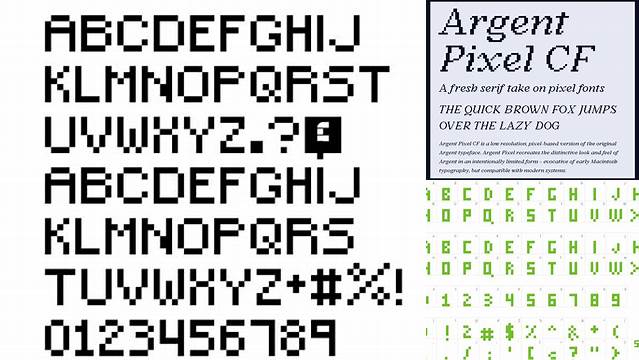
Hey everyone! 👋 Are you looking for a cool, retro vibe for your projects? Then look no further than the Argent Pixel Font, a fantastic option that's also totally free! This article is your ultimate guide to everything Argent Pixel: where to find it, how to use it, and some awesome design ideas to get your creative juices flowing. Get ready to dive into the world of pixel perfection! Argent Pixel Font is your go-to for that classic, blocky look reminiscent of old-school video games and early computer graphics. And the best part? It's available to download and use without spending a dime. Let's get started!
Argent Pixel Font: A Deep Dive into the Blocky Aesthetic
So, what exactly is the Argent Pixel Font? Well, imagine those iconic, chunky letters and numbers you see in games like Minecraft or classic arcade games. That's the essence of a pixel font. The Argent Pixel Font takes this concept and refines it, providing a clean, readable, and aesthetically pleasing typeface perfect for various applications. The unique aspect of this font lies in its construction: each letter, number, and symbol is built from a grid of pixels, giving it that distinctive blocky appearance. This design choice not only gives it a retro feel but also allows for creative customization. You can easily scale it up or down without sacrificing clarity. This is a huge advantage, especially when designing for different screen sizes or print materials. Whether you're working on a website, creating a game interface, or designing a poster, the Argent Pixel Font offers a distinctive style that can elevate your project. The simplicity of the font makes it incredibly versatile. You can use it for headlines, body text, or even as a decorative element. Its clear and concise forms ensure legibility, even at smaller sizes, making it a reliable choice for various design needs. Moreover, the pixelated nature of the font can evoke a sense of nostalgia, making it an excellent choice for projects targeting audiences with an affinity for retro aesthetics. The Argent Pixel Font is not just a typeface; it is a design statement. It's a way to communicate a particular style, a message, and a connection with the past. Its bold, blocky form is a bold choice to make your designs pop. This makes the Argent Pixel Font more than just a font; it is a powerful design element that can transform the overall look and feel of your projects.
Argent Pixel Font in Design: Applications and Examples
So, where can you actually use the Argent Pixel Font? The possibilities are vast! The Argent Pixel Font shines in various design applications due to its unique aesthetic. It's particularly well-suited for projects that aim for a retro or technological look. Imagine using it in a video game interface, creating titles for YouTube videos, or designing a website with a vintage gaming theme. The font works exceptionally well for game interfaces, adding a nostalgic touch that immediately resonates with gamers. Headlines for gaming blogs or reviews can be instantly engaging, and the font also offers great readability in user interface elements. For websites, the Argent Pixel Font can be used in navigation bars, headings, and call-to-action buttons to provide a consistent theme. When it comes to graphic design, the Argent Pixel Font can be a real game-changer. Think about posters for tech conferences, promotional materials for retro-themed events, or even logos for tech startups. The font's blocky appearance is instantly recognizable and can convey a sense of innovation and nostalgia simultaneously. The font is also a fantastic choice for creating digital art and pixel art. Its modular design makes it ideal for creating custom text elements. You can easily manipulate the font in image editing software to create unique designs and effects. The Argent Pixel Font can also be incorporated into social media graphics to make your posts stand out from the crowd. The versatility of the font makes it an excellent choice for all sorts of creative endeavors. The font can add a unique visual style to your content, setting it apart from other design choices. You can create a unified and engaging aesthetic for your audience, adding that special touch to your projects.
Argent Pixel Font for Game Design: Level Up Your Interface
Game designers, listen up! The Argent Pixel Font is your secret weapon. It's perfect for creating a cohesive and immersive gaming experience. The font adds an instant retro feel. This can transport players back to the golden age of gaming. Imagine the menus, health bars, and scoreboards, all rendered in crisp, blocky text. It’s not just about nostalgia; it’s also about functionality. The clear and legible design of the Argent Pixel Font ensures that players can easily understand information. It’s incredibly important in fast-paced gaming situations. Think about critical information like ammo count, player health, and objectives. The design must be easy to read at a glance. This font will do just that! Moreover, the pixelated style of the Argent Pixel Font complements other pixel art elements, creating a visually consistent environment. Characters, environments, and text combine to create an overall aesthetic, further immersing the player in the game world. The font's modular nature allows designers to customize it. You can adjust the size, color, and even the spacing between characters to fit the game's visual style. This degree of flexibility is crucial for achieving a unique and branded look. Using the Argent Pixel Font isn't just about choosing a font; it's about telling a story. The pixelated style communicates the game's essence. It will create an immediate connection with players who appreciate retro aesthetics. Plus, the font is adaptable to various game genres. It works well in platformers, RPGs, and even modern indie games. The Argent Pixel Font is versatile and can enhance any game.
Website Design with Argent Pixel Font: Retro Vibes in the Digital Age
Want to give your website a cool, retro vibe? The Argent Pixel Font is a fantastic choice. Websites are all about first impressions. A well-chosen font can immediately grab a visitor's attention. The Argent Pixel Font is perfect for making that statement. It brings an instant sense of nostalgia. The font instantly grabs the attention of anyone who likes retro gaming or computer graphics. Use it for headings, navigation, and even body text. This approach will create a consistent theme throughout the site. The blocky appearance is both eye-catching and readable, which is essential for effective communication. Navigation menus and call-to-action buttons can stand out. The Argent Pixel Font helps create a user-friendly experience. Website visitors need to quickly find what they're looking for. The font's clarity aids in this process. However, remember to use the font wisely. Using the Argent Pixel Font for every single piece of text can overwhelm visitors. Try to balance it with other, more traditional fonts for the body text. Use it for key areas that you want to highlight. The Argent Pixel Font is versatile enough to be combined with other design elements. It works well with pixel art, vintage graphics, and even modern, minimalist designs. The font can adapt and create a cohesive, engaging, and memorable website.
Argent Pixel Font for Logos: Bold and Blocky Branding
Need a logo that pops? Consider using the Argent Pixel Font. It's a great way to create a memorable brand identity, especially if your business or project leans into retro or tech themes. The font's bold, blocky letters immediately grab attention. It's perfect for a logo that needs to be visible and recognizable. Think of it as a statement piece. The Argent Pixel Font offers instant recognition and adds a unique flair. Because of its distinctive style, it stands out from the crowd. Its clean lines and clear forms are great for easy readability. Your brand name will be easy to remember, even at a glance. You can easily customize the font to match your brand's personality. Change the color, add effects, or integrate it with other design elements. The font's modular nature makes it versatile. You can easily modify the font to fit your brand's visual style. The Argent Pixel Font is suitable for various businesses, from gaming companies to tech startups. It works well when paired with other elements, like pixel art graphics. The combination makes a strong, consistent brand image. Plus, the font's retro feel resonates well with audiences who appreciate nostalgia and vintage aesthetics. It will connect your brand to potential customers. If you are after a memorable brand, the Argent Pixel Font will create a unique identity.
Argent Pixel Font for Print Materials: Posters, Flyers, and More
Looking to create eye-catching print materials? The Argent Pixel Font can work wonders. This versatile font shines in the world of posters, flyers, and other print designs. The font's bold, blocky appearance makes it perfect for grabbing attention in a crowded space. The Argent Pixel Font is ideal for headlines and key information. It ensures that your message is seen and remembered. Imagine posters for retro gaming events, flyers for tech conferences, or promotional materials for indie music concerts. The font's clear, crisp lines provide excellent legibility, even at a distance. This makes it very useful for both large and small formats. You can easily print it on various materials, from glossy paper to textured cardstock. It's versatile enough to adapt to different print techniques. You can combine the font with pixel art graphics, creating a cohesive, retro-themed design. The blocky style complements other elements. The font's inherent nostalgia factor can immediately connect with audiences who have an appreciation for vintage aesthetics. It can work well in a variety of contexts. From announcements to promotional materials, the font can be a game-changer.
Argent Pixel Font and User Interface (UI) Design: Creating Intuitive Experiences
Are you a UI designer? Then, you should be paying attention to the Argent Pixel Font. The font is a great choice for creating user interfaces (UIs) that are both visually appealing and easy to use. One of the primary goals of UI design is to make interfaces intuitive and user-friendly. The Argent Pixel Font helps achieve this goal because of its clear and simple design. The font is easy to read. The blocky letters make it easy for users to understand. It's especially helpful for critical information, such as navigation menus, button labels, and error messages. The Argent Pixel Font can add a distinctive aesthetic to your UI. If you want a retro or tech-inspired theme, the font can create a cohesive look. It fits well with other UI elements. Its modular design gives designers flexibility to customize the font. It can be scaled, colored, or modified to align with the overall design. Use the font in both web and mobile apps. This versatility makes it a valuable asset for designers looking to create distinctive, user-friendly interfaces. The font is not just about aesthetics; it enhances the user experience.
Argent Pixel Font: Inspiring Creativity in Every Project
Ready to start using the Argent Pixel Font? Remember to embrace the retro aesthetics. Consider the design possibilities and your audience. The font can add a special touch to your projects. Start with these tips. You can easily find the font, use it, and get your creative juices flowing. Now, go create some stunning designs! The Argent Pixel Font is your key to unlocking the cool, retro world.